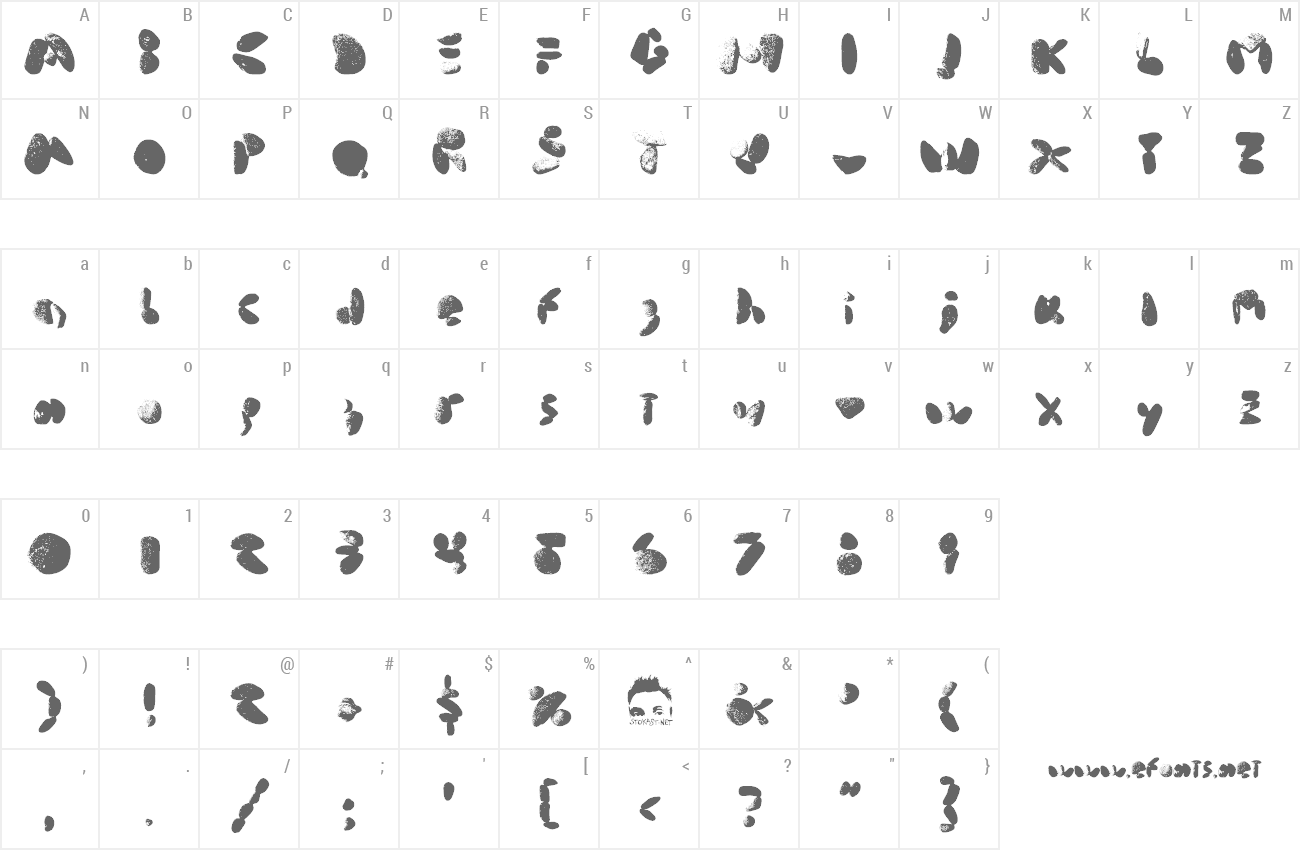
Preview and download Middle Cove Beach Rocks Font. Created by Elling Lien in Fancy Various styles with Public domain / GPL / OFL license.
| Font name: | Middle Cove Beach Rocks |
| Author: | Elling Lien |
| Note by Elling Lien | |
| Glyphs made with rocks from Middle Cove Beach in Newfoundland and Labrador, Canada. |